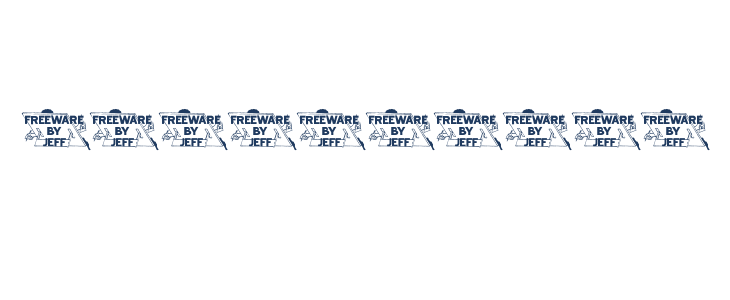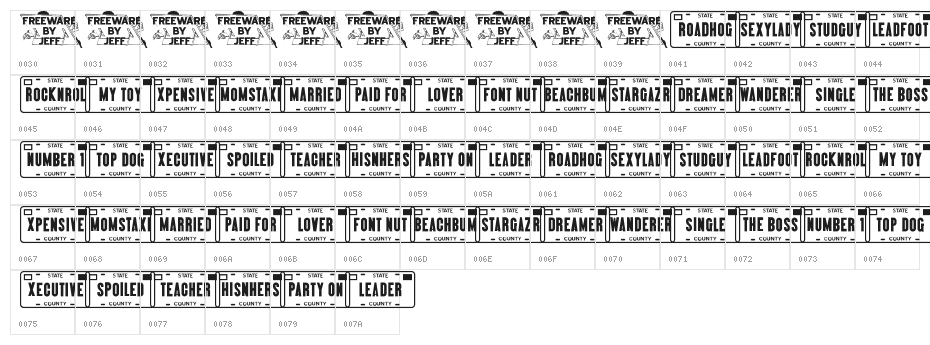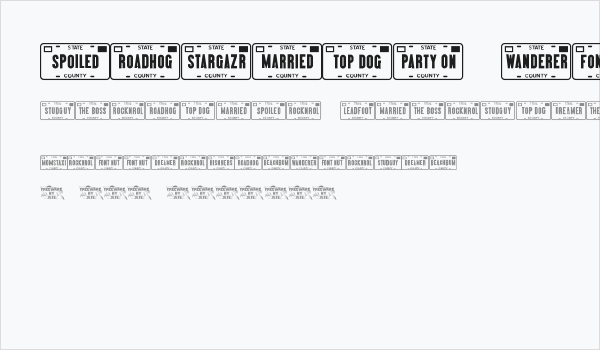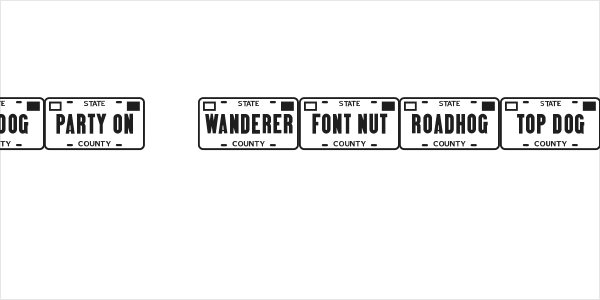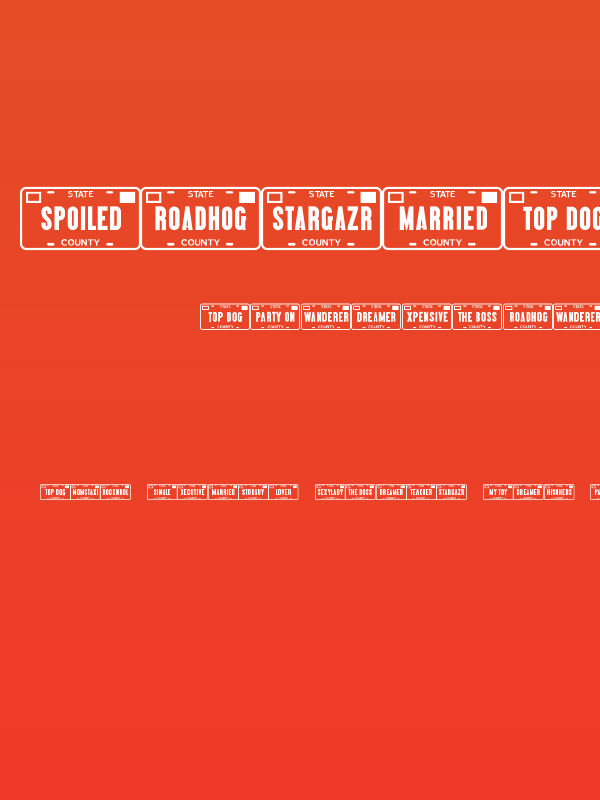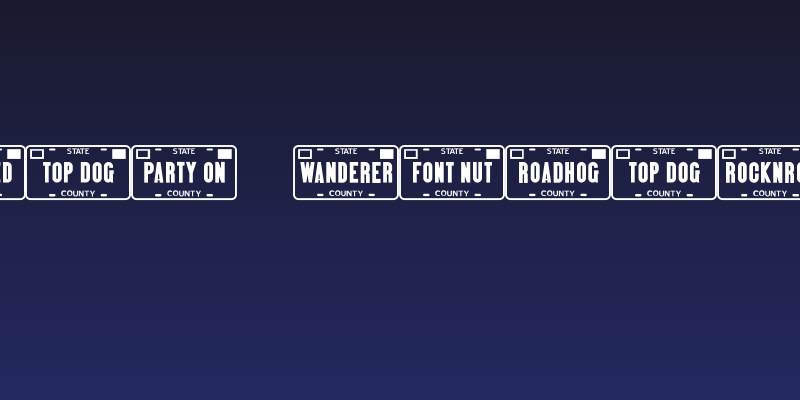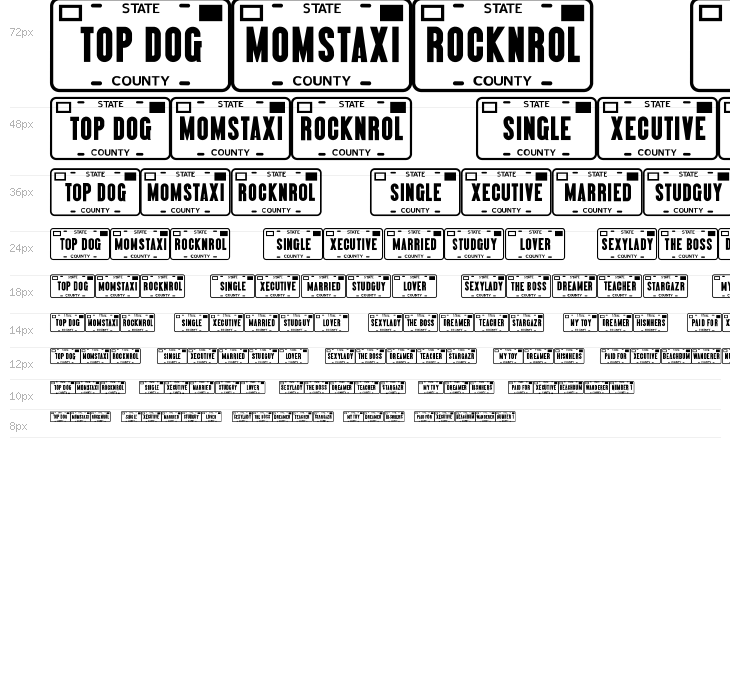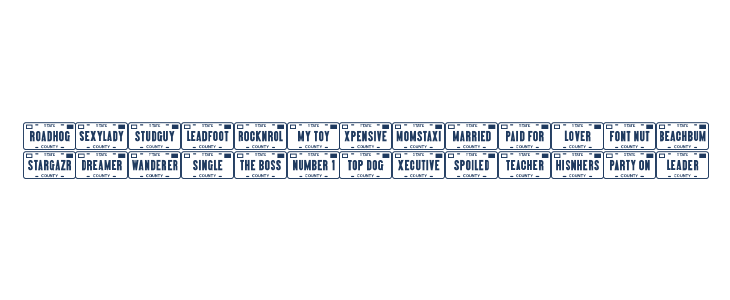
Vanity Plates JL Font
Vanity Plates JL Description
This image features a series of novelty license plates with various phrases, each styled with a bold, decorative font. The font is characterized by its playful and eye-catching design, featuring thick strokes and a slightly condensed appearance. The letters are uppercase and evenly spaced, ensuring readability even at a distance. The font's decorative nature makes it suitable for fun and informal contexts, adding a whimsical touch to the text. The overall style is modern and playful, with a focus on capturing attention and conveying a sense of humor or personality.
Overall StylePlayful, Modern
Use CaseNovelty items, Custom signage
Proposed ProjectsThis font is perfect for novelty items, personalized gifts, custom signage, and playful branding projects.